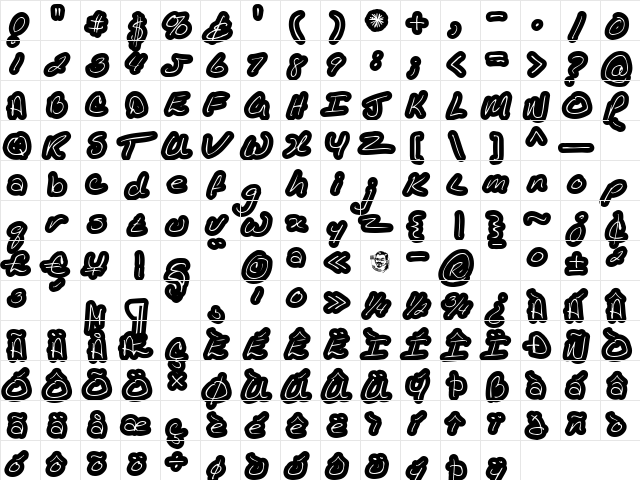
KathleenInline Regular
Design Context for KathleenInline Typeface
KathleenInline is built around its visual character rather than neutral utility — its distinctive forms are designed to make an impression at display sizes.
Font Pairing: Pair with a clean neutral sans-serif for body copy to let KathleenInline's character lead without overwhelming the composition.
Pro Tip: Treat KathleenInline as the centrepiece of your typographic hierarchy. One strong heading set in a decorative face can carry an entire layout.